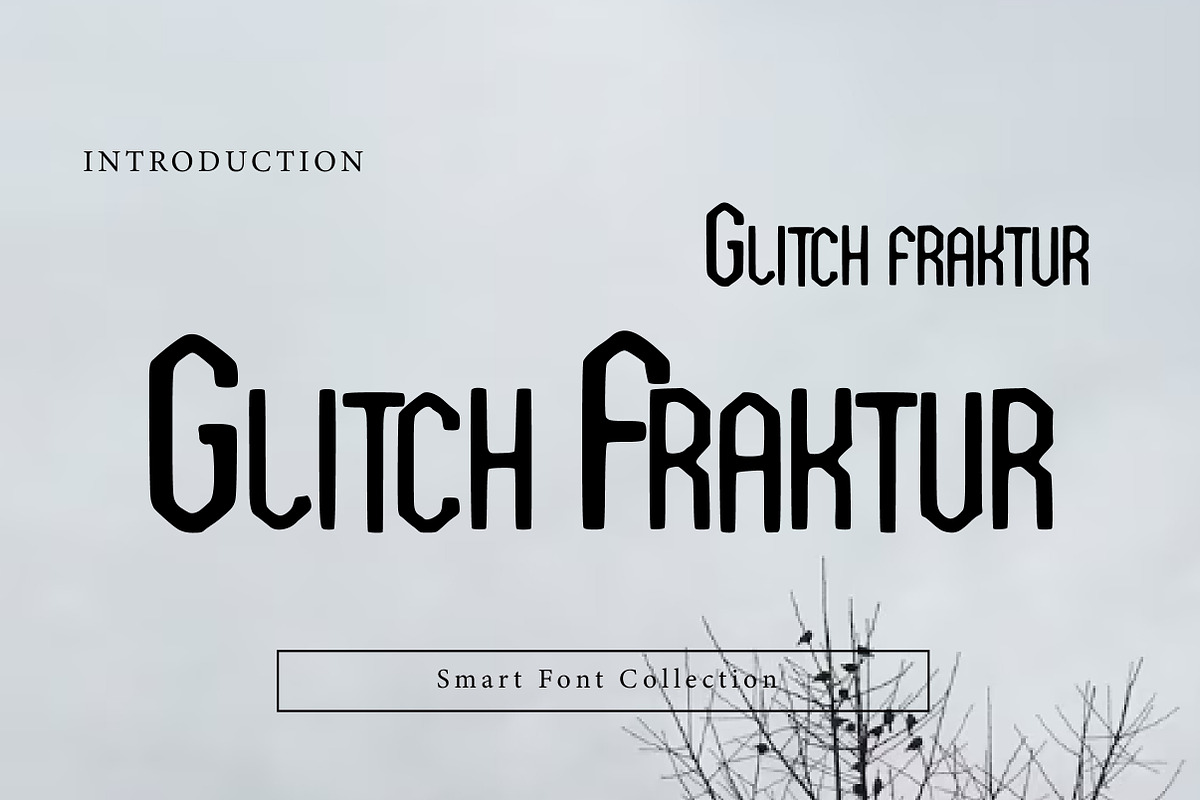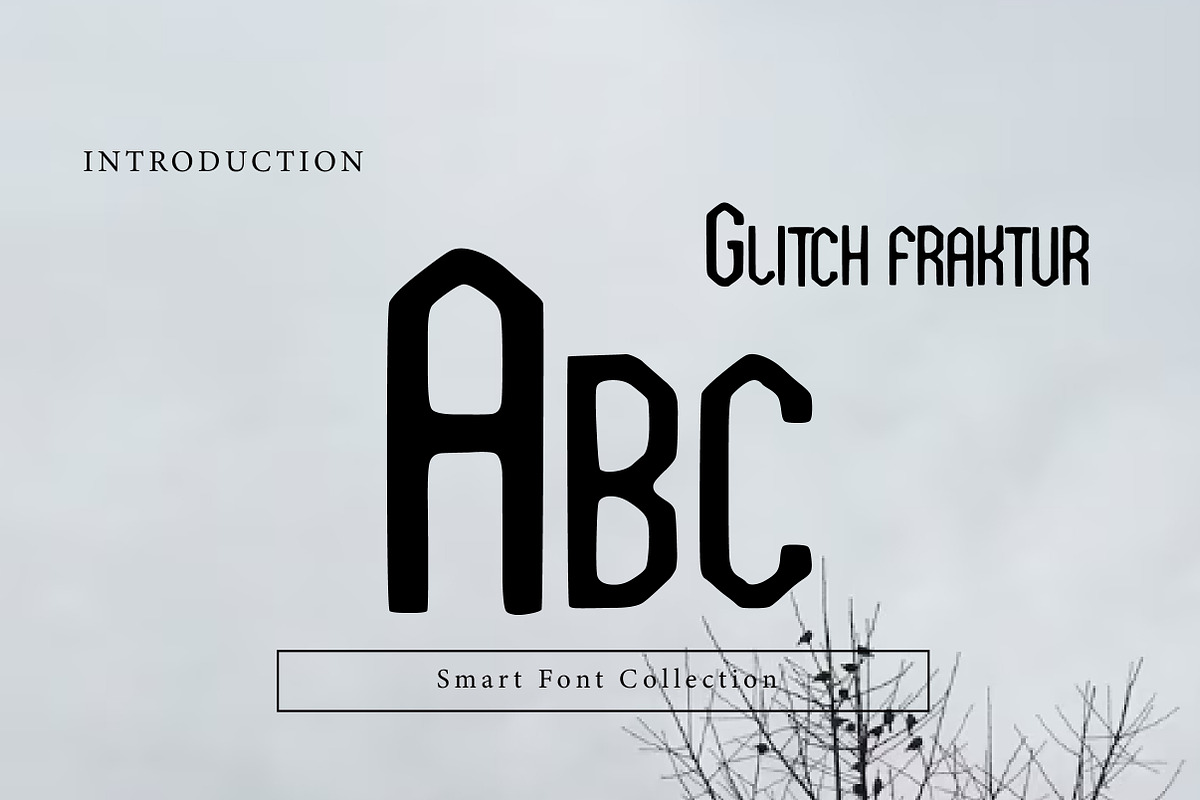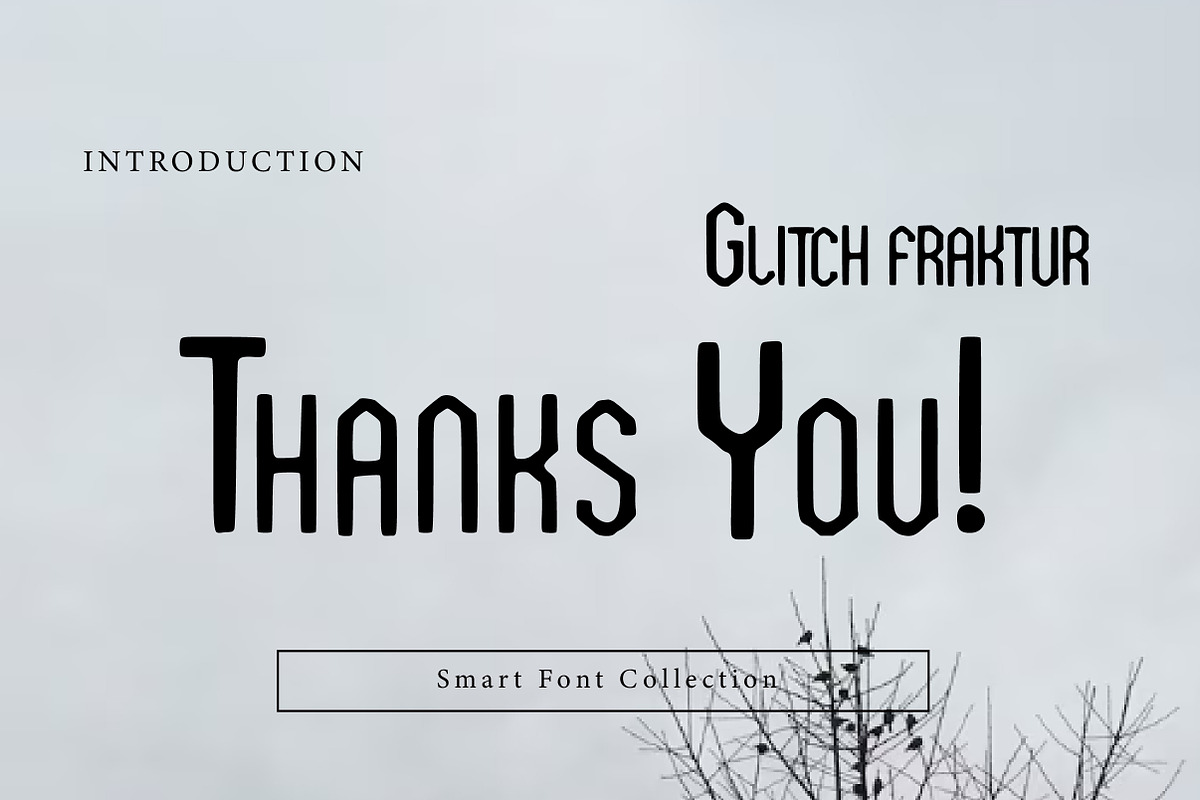
Glitch Fraktur
Glitch Fraktur is a modern blackletter display font that merges traditional Fraktur / Gothic structure with a clean glitch-inspired twist. The letterforms keep their historic medieval character while featuring simplified, slightly distorted strokes that give it a subtle digital edge.
This font is perfect for streetwear branding, tech-inspired posters, gaming graphics, esports logos, album covers, social media titles, stickers, t-shirt designs, and bold headline typography. It balances classic gothic heritage with a contemporary urban vibe.
Perfect for: Modern gothic branding, cyber-inspired projects, dark aesthetic layouts, band merchandise, and strong statement designs.